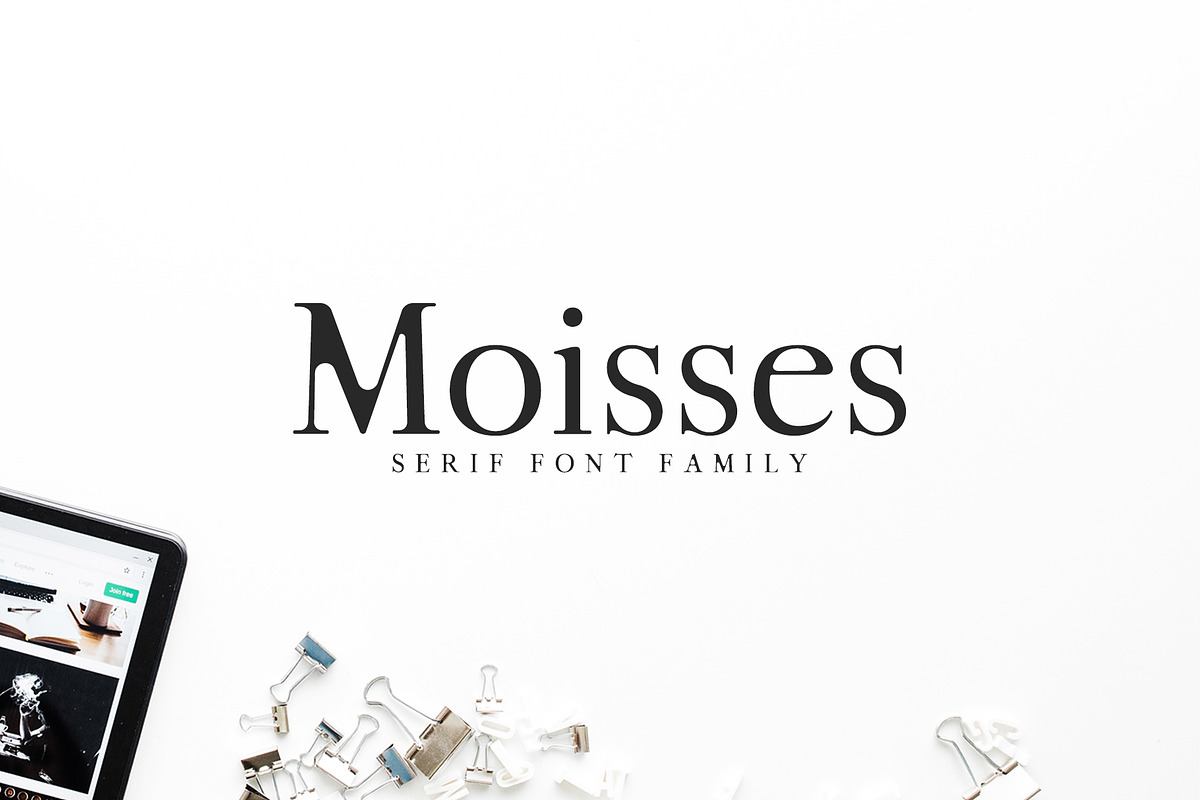
The Moisses Serif Font Family Pack Free Download is a sophisticated and versatile typeface family, offering a range of styles that make it perfect for any design project. Whether you need a refined serif for print materials, elegant branding, or stylish editorial layouts, the Moisses Serif Font Family Pack has you covered. Its well-balanced letterforms and timeless design make it ideal for professional business projects, logos, magazines, and more. With multiple weights and styles to choose from, this font family ensures your typography looks both polished and readable. Please note, for commercial use, a license purchase is required. However, you can easily download the Moisses Serif Font Family Pack Free Download for free for personal use and explore its versatility in your designs. Download the Moisses Serif Font Family Pack Free Download today and elevate your projects with this modern, classic serif family.